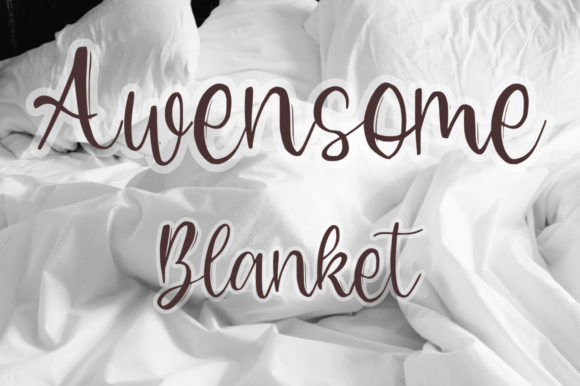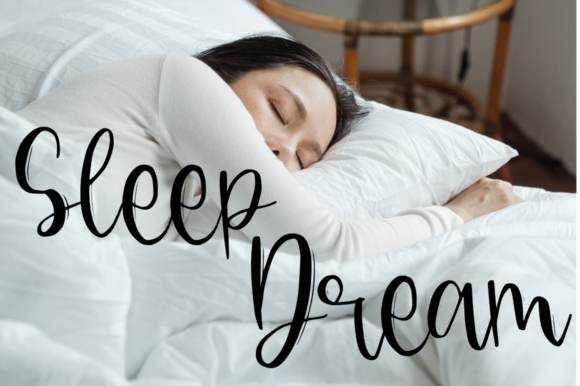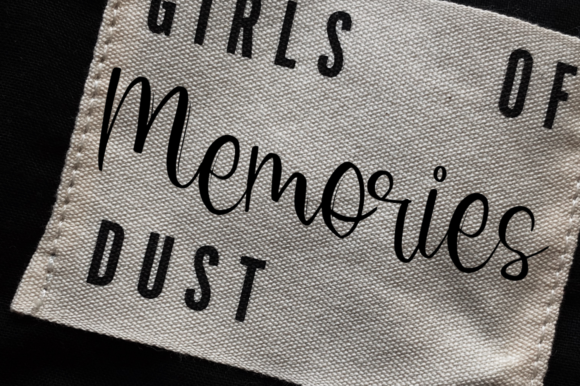
Barbara Font
About Barbara Font
Barbara is a gracefully designed handwritten font that radiates a sweet and subtle charm, meticulously crafted to infuse elegance and class into your design projects. Its thoughtful creation ensures that it imparts a touch of sophistication to any creative endeavor.
With its delicate strokes and refined curves, Barbara captures a sense of refinement that can elevate your designs to new heights. Whether you’re working on invitations, greeting cards, branding materials, or any other project that demands a personal and refined touch, this font is a valuable asset.
The gentle demeanor of Barbara’s design allows it to harmonize seamlessly with a variety of contexts while still standing out with its unique character. The font’s handwritten appearance imparts a warm and human element to your projects, making them feel personable and relatable.
Invitations designed with Barbara exude an air of intimacy and care, setting the tone for special occasions such as weddings, parties, and gatherings. Greeting cards created with this font become cherished keepsakes that convey heartfelt sentiments and emotions. In branding materials, Barbara can add a touch of sophistication that resonates with your audience, leaving a lasting impression.
The versatility of Barbara extends beyond print to digital platforms, where it can be incorporated into social media graphics, digital art, and more. Its ability to maintain its elegance and charm across different mediums makes it a reliable choice for maintaining brand consistency and delivering a uniform visual experience.
By integrating Barbara into your design projects, you showcase your dedication to quality and meticulous attention to detail. Its carefully curated form and graceful demeanor make it a font that captures attention while exuding a sense of refined beauty. Whether aiming for sophistication, warmth, or a blend of the two, Barbara possesses the potential to transform your creative visions into exceptional outcomes that leave a lasting impact.